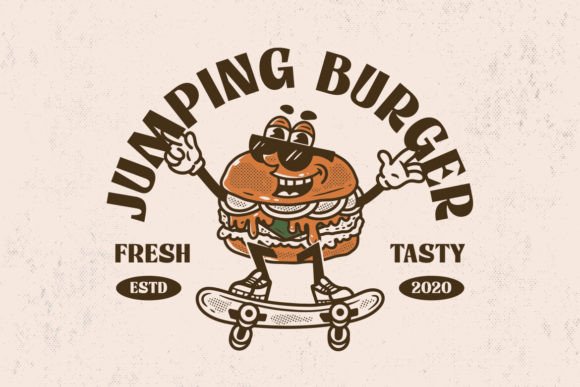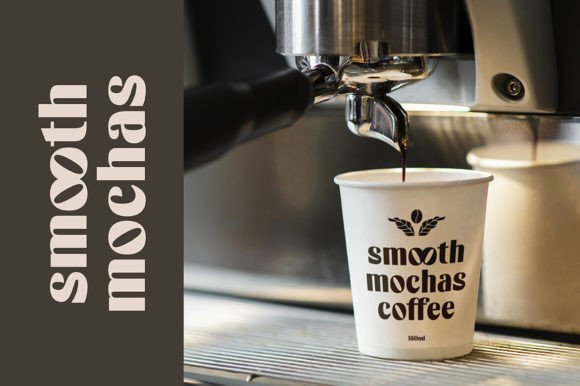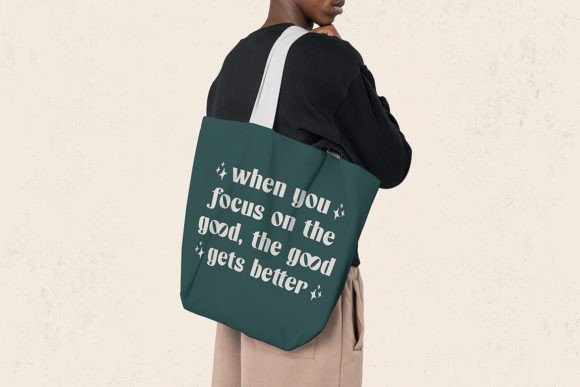
Introducing Grobel: The Unconventional Display Font That Sparks Creativity
Have you ever been in the midst of working on a design project, only to find yourself stuck on one thing: the perfect font? I recall a particularly frustrating experience when I was tasked with creating a logo for a client’s new boutique brand. The client wanted something that would stand out, something unique, but every font I tried seemed to blend in with the crowd. That’s when I stumbled upon “Grobel” – a game-changing display font that injects a dose of creative flair into any design.
A Personal Encounter with Grobel
As I explored Grobel, I was immediately captivated by its distinctive personality and unconventional letterforms. It was love at first sight! The artistic details and bold style of this font make it perfect for designers, crafters, and creative hobbyists looking to add a touch of individuality to their projects. Whether you’re crafting logos, posters, packaging, or website headers, Grobel brings a sense of creativity and innovation to your designs.
An Honest Review of Grobel
The Good: What I Love About Grobel
- ✨ Unique and unconventional letterforms that add a touch of personality to any design
- ✅ Bold and expressive style that’s perfect for making a statement
- 💡 Endless possibilities for creative experimentation and innovation
- 🎨 Artistic details that add a touch of sophistication and elegance
The Not-So-Good: Small Quirks and Limitations
While Grobel is an amazing font, there are a few things to keep in mind:
- ⚠️ Due to its bold style, Grobel may not be the best choice for body text or long-form content
- 🤔 Some users may find the unconventional letterforms challenging to pair with other fonts
The Backstory Behind Grobel
Grobel was designed by a team of creatives who wanted to push the boundaries of traditional typography. Inspired by the works of avant-garde artists and designers, they set out to create a font that would challenge conventional norms and inspire creativity. The result is a truly unique typeface that adds a touch of individuality to any design.
Q: What is Grobel?
A: Grobel is a unique display font that captivates with its distinctive personality and creative flair.
Q: What can I use Grobel for?
A: Grobel is perfect for designers, crafters, and creative hobbyists looking to add a touch of individuality to their projects, such as logos, posters, packaging, or website headers.
Q: Is Grobel easy to use?